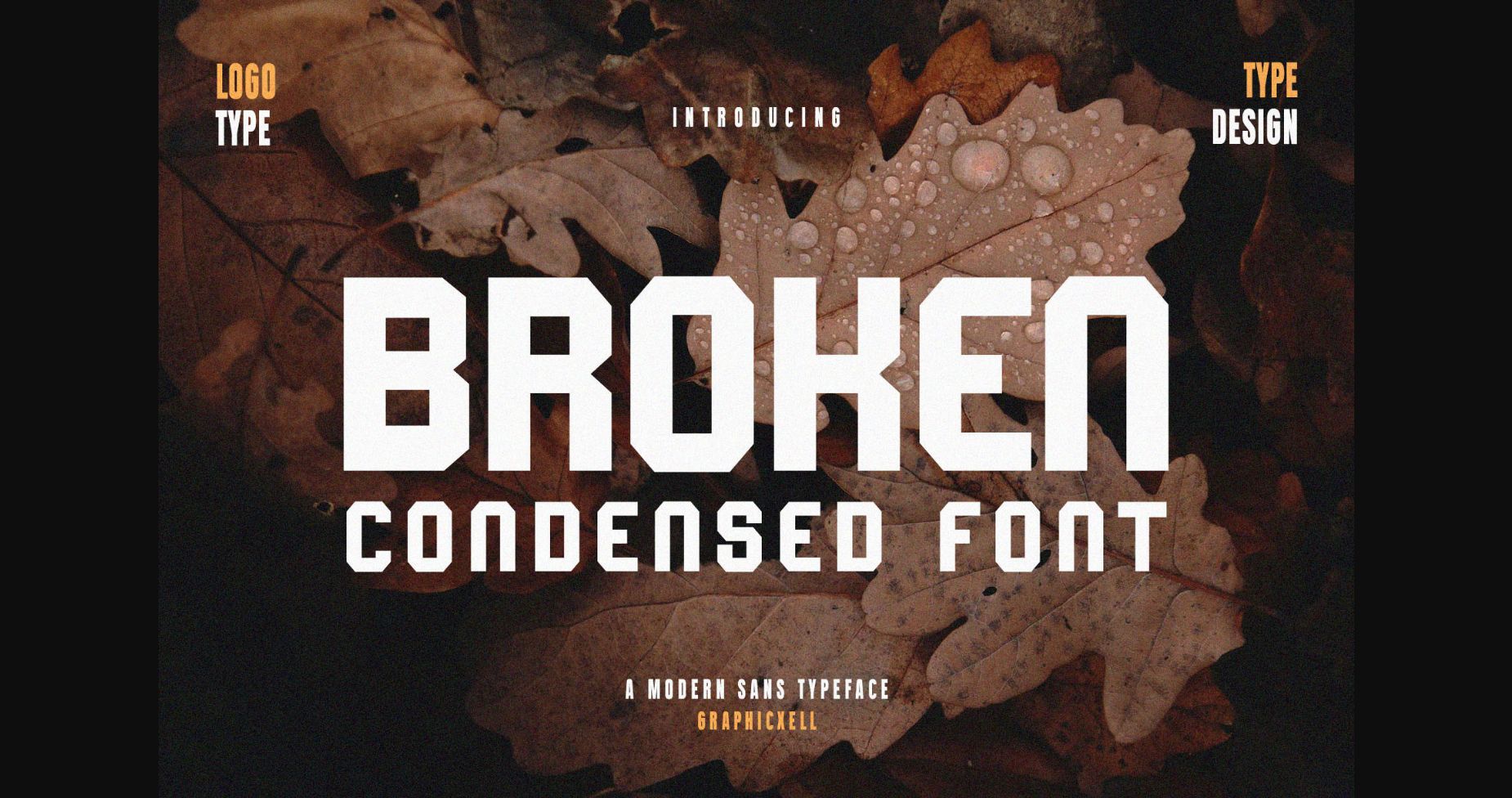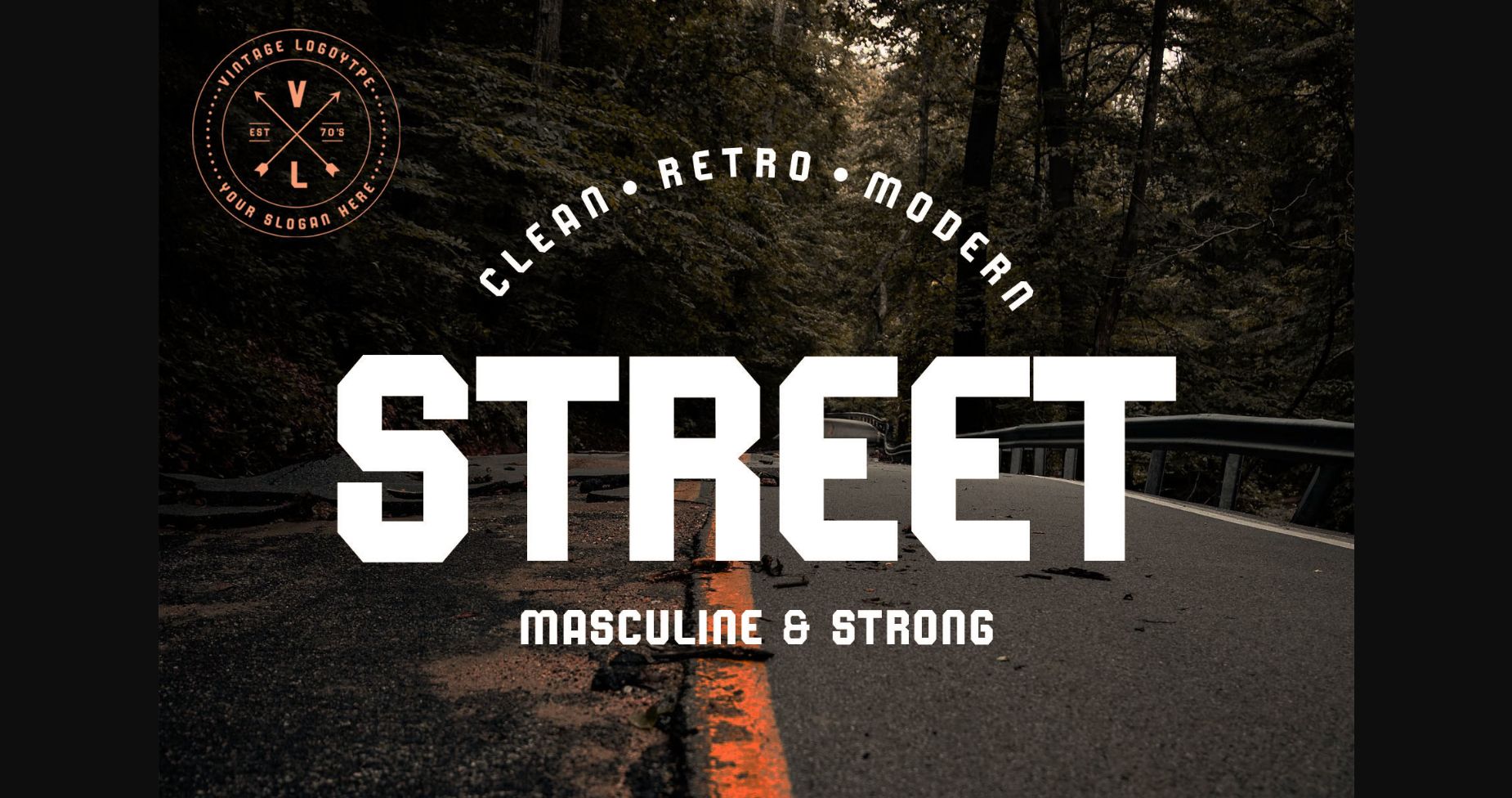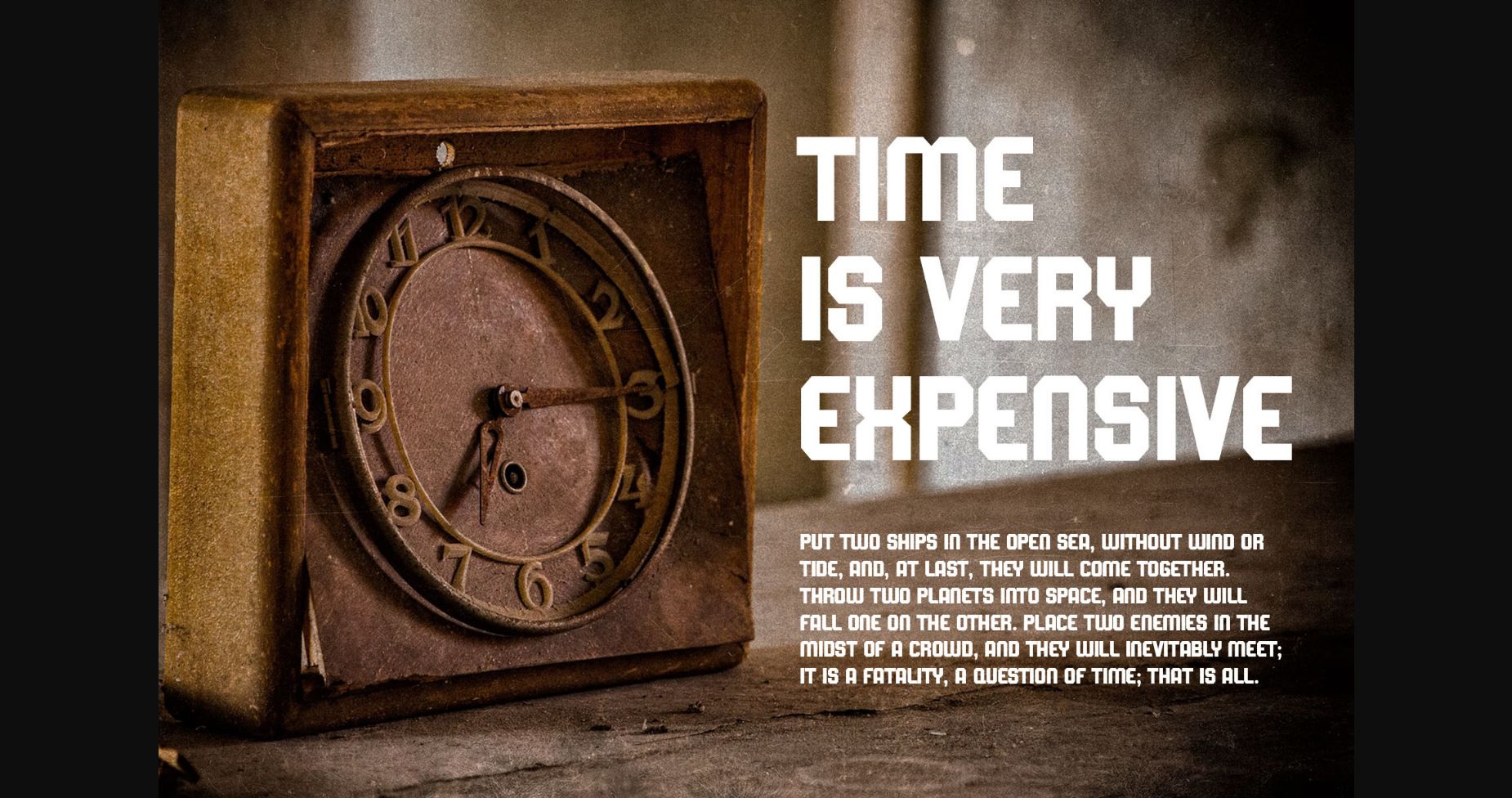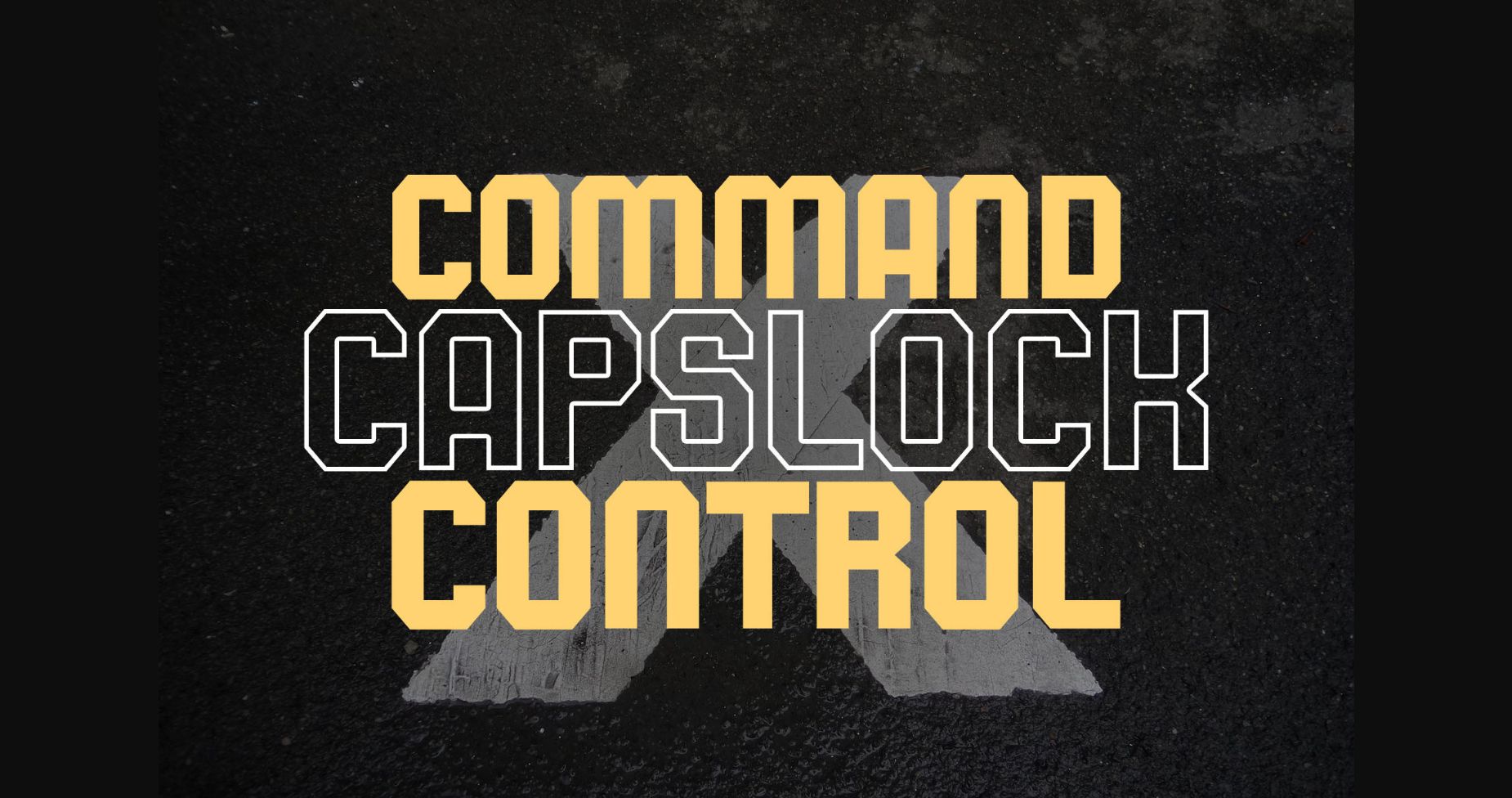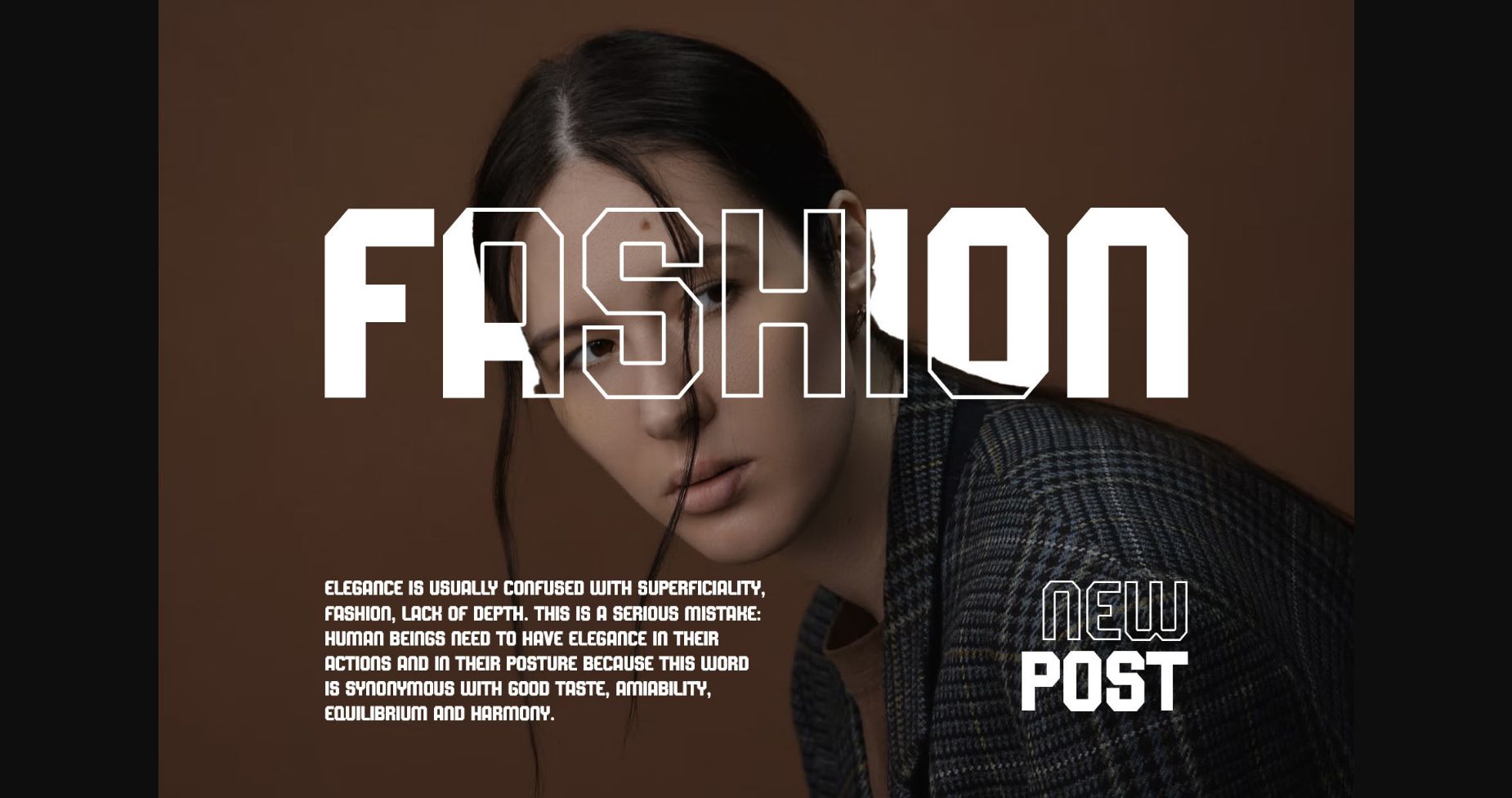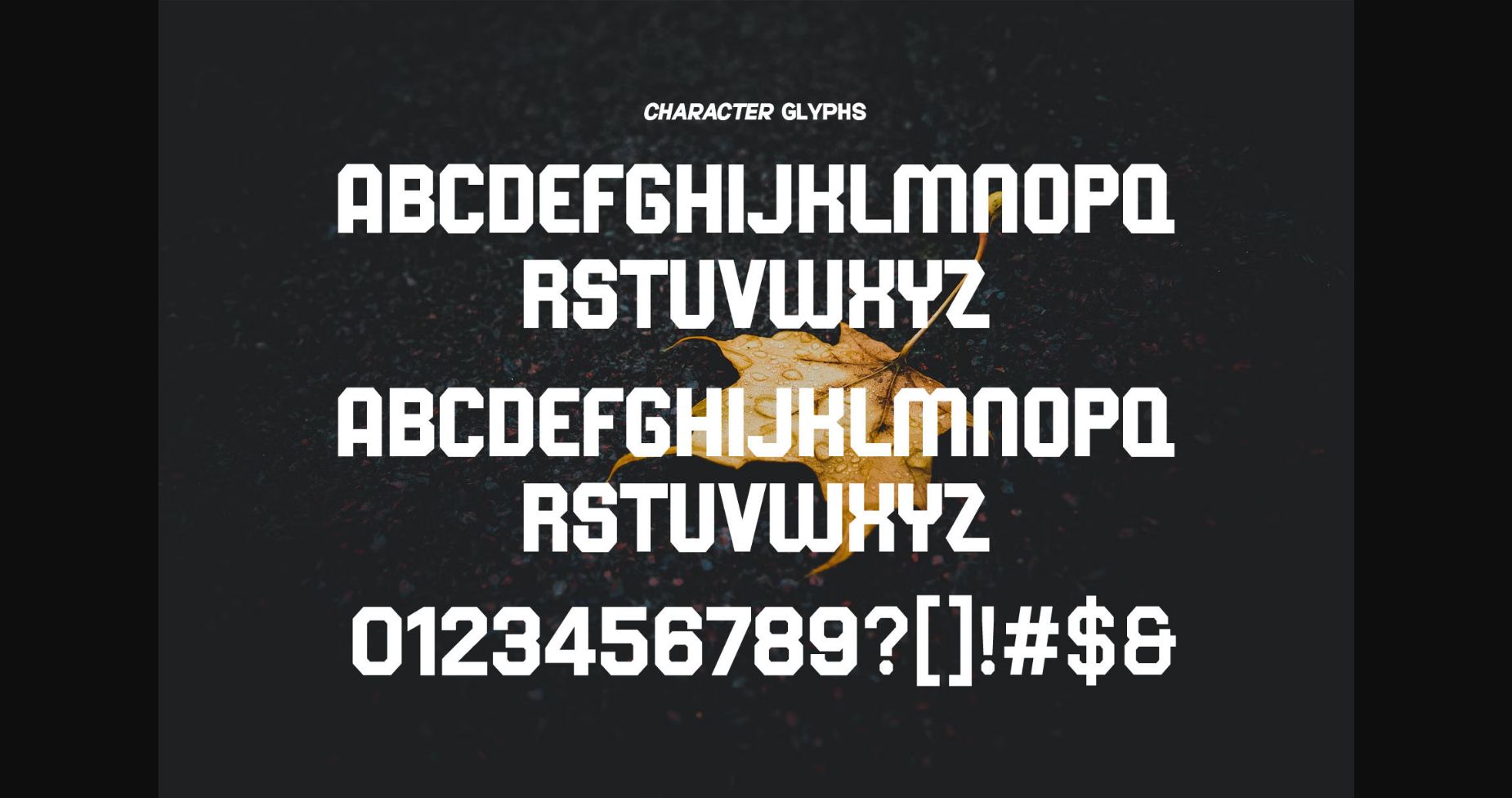
Broken Font
About Broken Font
Broken is an elegant sans-serif font with beautiful contrast. This font is perfect for your design needs such as layout designs, apparel, magazines, posters, logos, branding, and others.